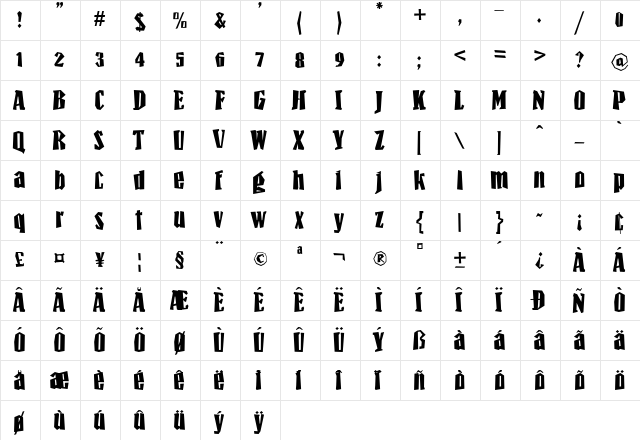
Paradiso Bold
| Foundry | BonjourType |
| Designer | Rachma |
Design Context for Paradiso Typeface
Paradiso is a composed and adaptable typeface that performs quietly and consistently across a wide range of design contexts. Its bold stroke weight gives it real presence on the page.